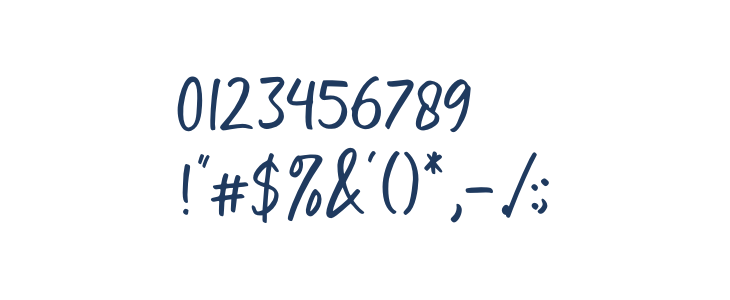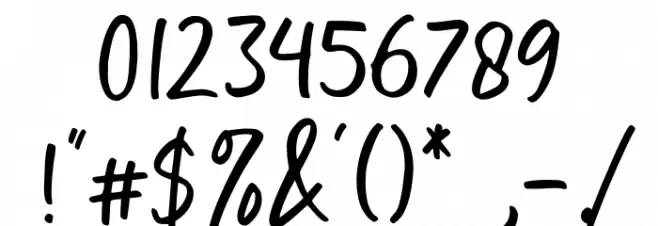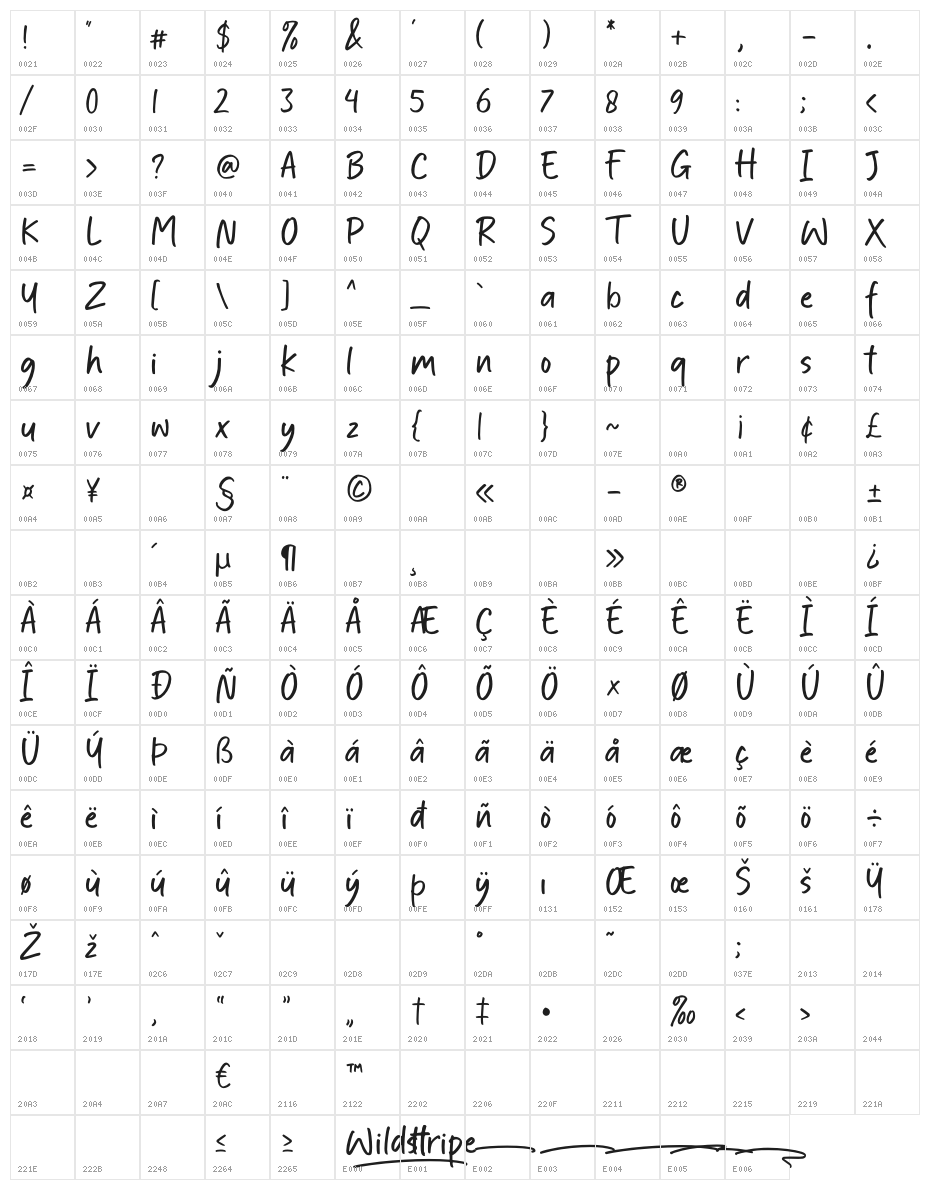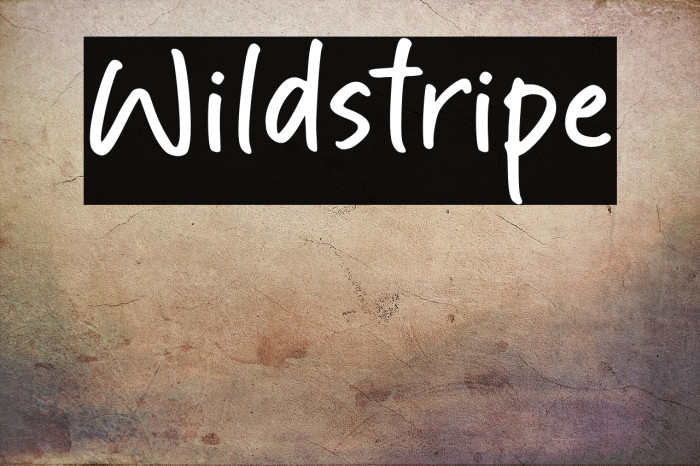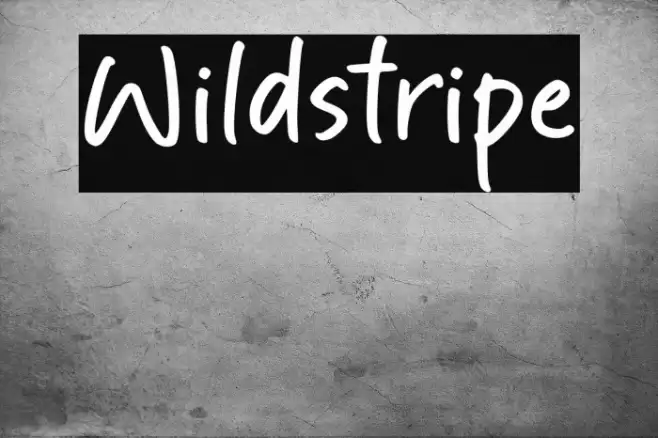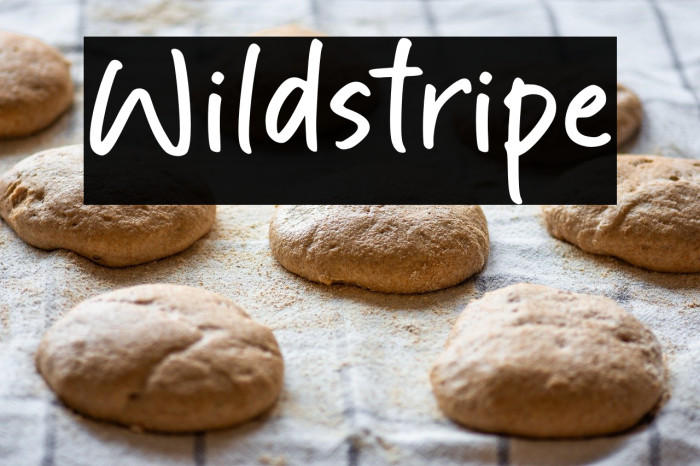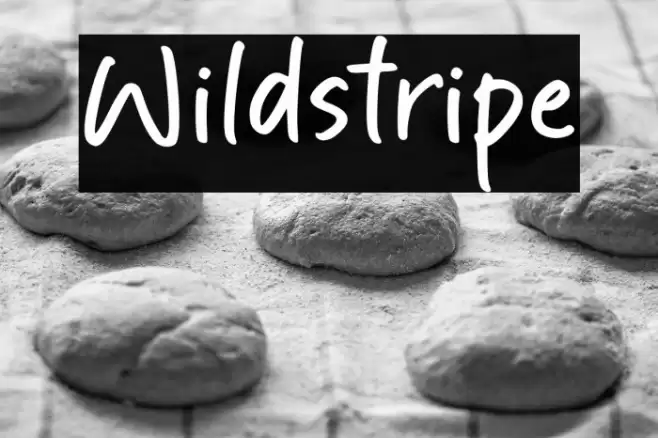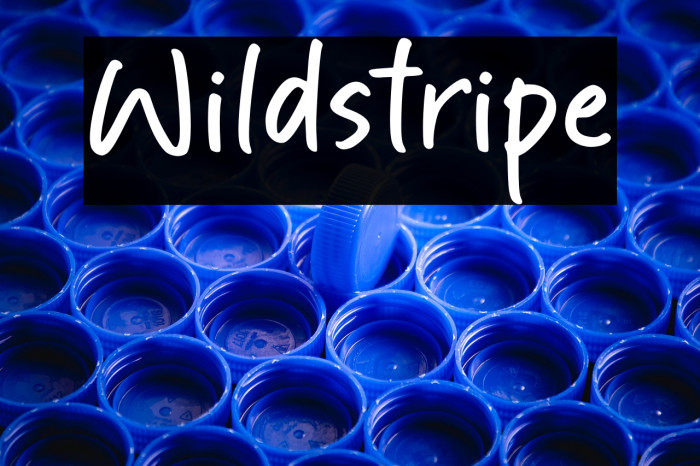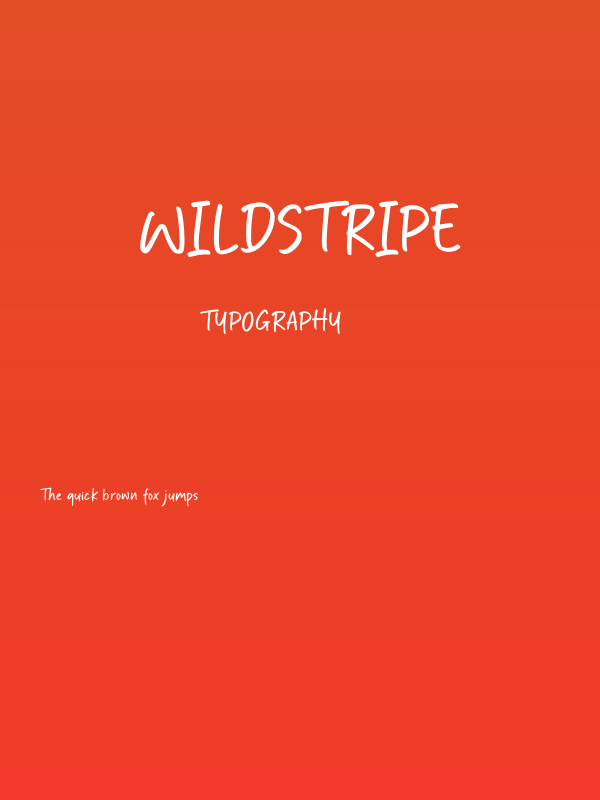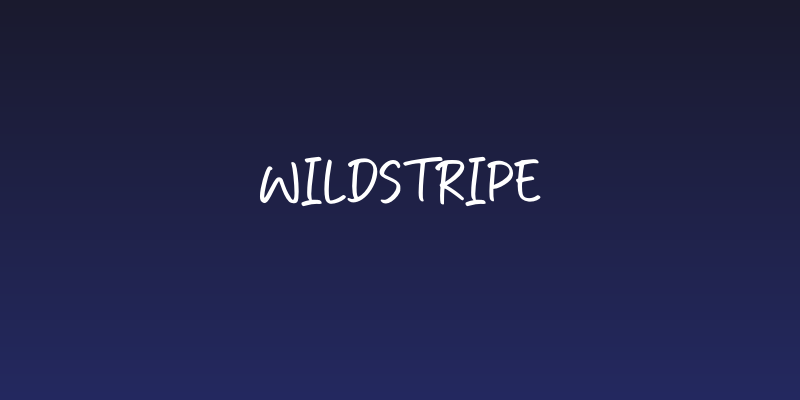
Wildstripe Font
Wildstripe Description
This font features a playful and energetic handwritten style, characterized by its irregular strokes and casual appearance. The letters are slightly slanted, giving a dynamic and informal feel. The uppercase and lowercase letters maintain a consistent flow, with rounded edges and varying stroke widths that add to its lively character. The numbers and special characters follow the same whimsical style, making it suitable for creative and informal designs. The overall look is approachable and friendly, ideal for projects that require a personal touch.
| Use Case | Headlines, Logos, Informal text |
| Proposed Projects | Ideal for greeting cards, children's books, playful branding, and social media graphics. |